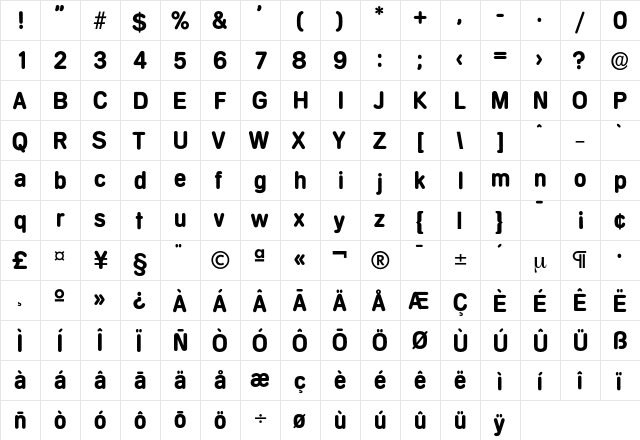
Mercedes-Bold Regular
Design Context for Mercedes-Bold Typeface
Mercedes-Bold is a composed and adaptable typeface that performs quietly and consistently across a wide range of design contexts. Its bold stroke weight gives it real presence on the page.